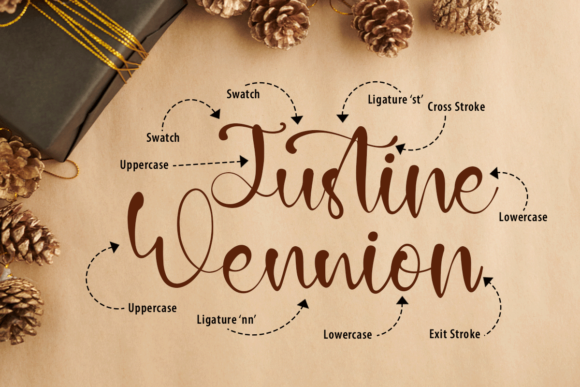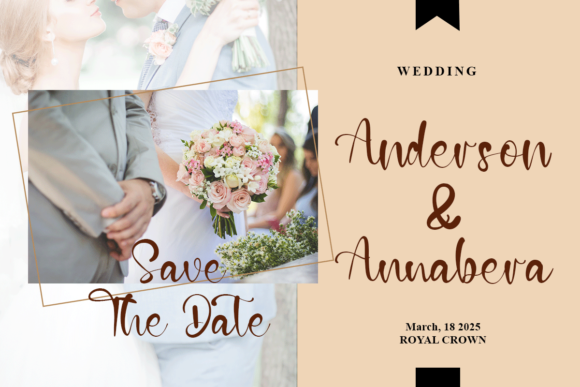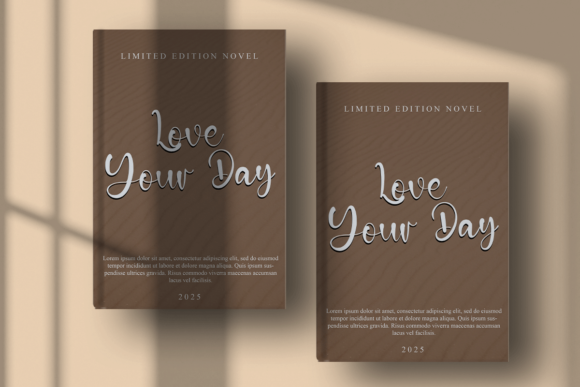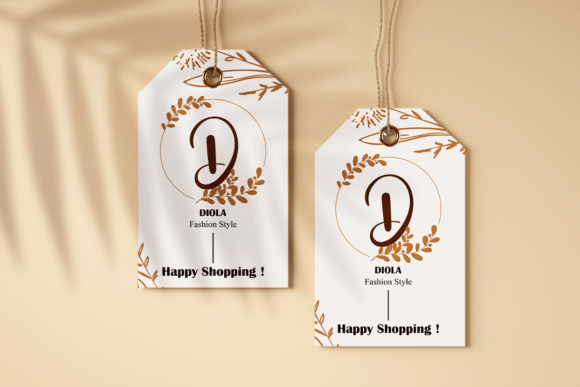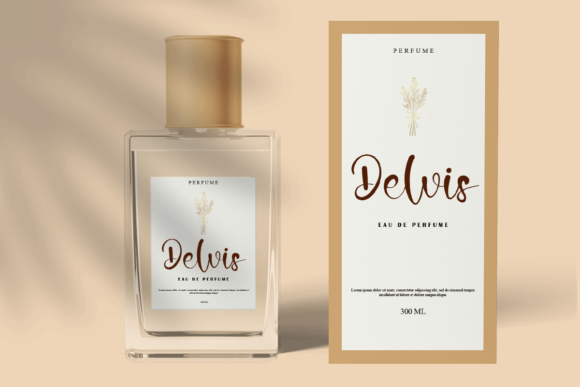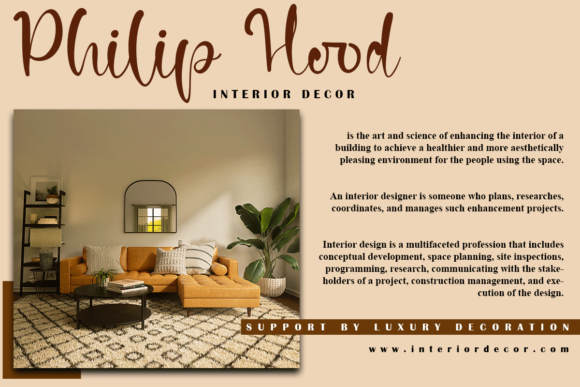
Introduction to Mommyday Font Font
Fonts play a crucial role in design, and the Mommyday Font font is a typeface that brings both character and versatility to any project. Whether you’re working on a branding project, a website, or a print design, the Mommyday Font font offers a unique style that can elevate your work.
Mommyday is a trendy, sweet and stylish script font.
Get inspired by its chic style and use it to create gorgeous wedding invitations, beautiful stationary art, eye-catching social media posts, and much more .
Key Features of Mommyday Font Font
Why Choose Mommyday Font Font?
The Mommyday Font font is more than just a typeface – it’s a design tool that helps you communicate your message with style and clarity. Its unique character set and versatile design make it suitable for a wide range of applications, from elegant invitations to bold headlines.
With its carefully crafted letterforms and balanced proportions, the Mommyday Font font ensures readability and visual appeal across all mediums.
What makes Mommyday Font font special?
The Mommyday Font font stands out with its unique design, exceptional readability, and versatility across various design applications.